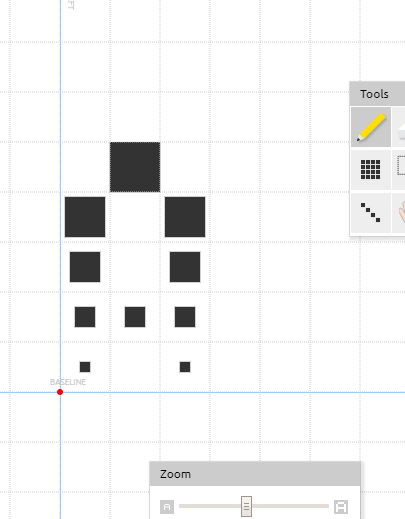
A font inspired by the look of the Cantor set. Hope you enjoy.
Not long ago I also made a similar font, but adopted the dot as my primary form. I like the halftone effect, but your A is a little illegible.
I fixed the a, i hopee this makes it better for you.
This is my suggestion.